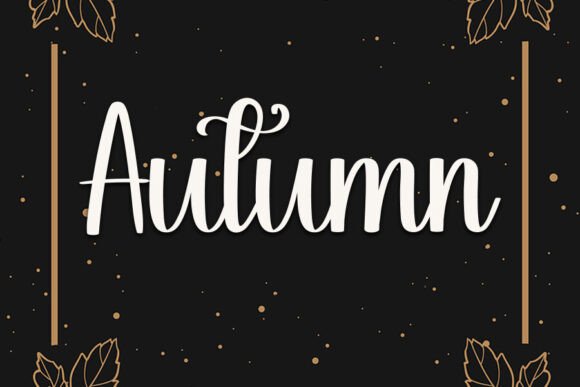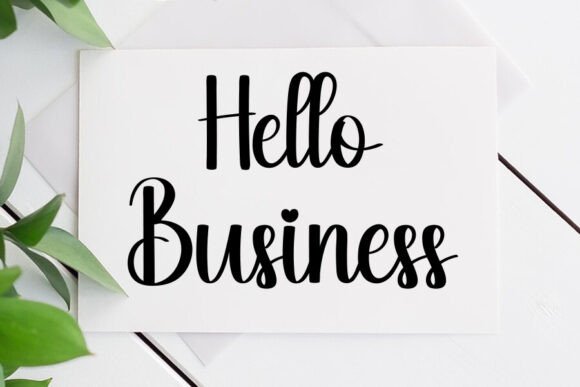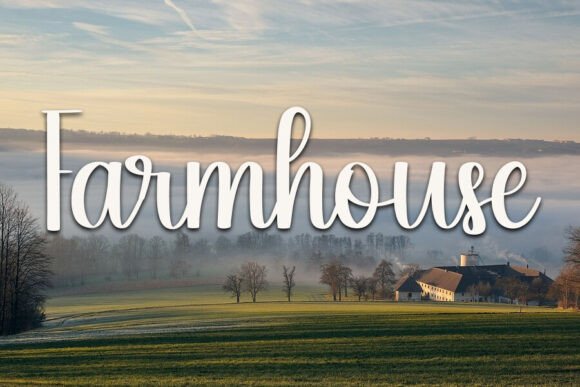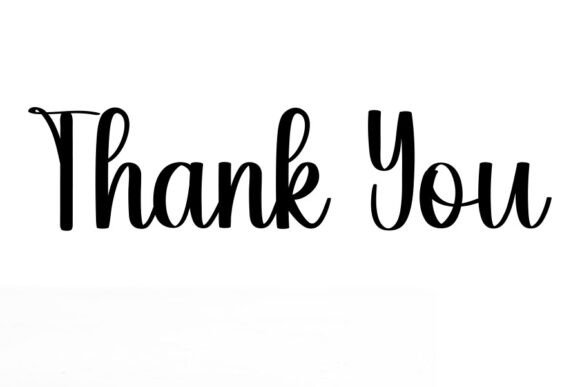
Introducing Background Font: Elevate Your Designs with Elegant Handwritten Style
In the world of typography, few fonts manage to capture the essence of elegance and personal touch as effectively as Background Font. This beautiful handwritten font boasts a natural, flowing style that closely resembles elegant cursive writing. It’s an excellent choice for designers and crafters looking to add a sophisticated and stylish flair to their projects, be it invitations, logos, social media posts, or any other creative endeavor.
The Charm of Background Font
Background Font stands out due to its unique, handcrafted aesthetic. Unlike generic, computer-generated fonts, Background Font brings a level of warmth and personality that’s hard to achieve with standard typography. Its elegant cursive style is not only visually appealing but also highly versatile, making it suitable for a wide range of applications.
Key Features of Background Font
- Natural and Flowing Style: The font’s design mimics natural handwriting, complete with subtle variations in line width and a fluid, connected script that gives it a dynamic feel.
- Elegant Cursive Writing: It embodies the sophistication of traditional cursive writing, making it perfect for projects that require a touch of class and refinement.
- High Versatility: Whether you’re working on wedding invitations, branding materials, or digital content, Background Font can adapt to various design needs, ensuring your project stands out.
- Easy to Read: Despite its elegant and cursive nature, the font maintains a high level of readability, ensuring your message is conveyed clearly and effectively.
Applications of Background Font
The versatility of Background Font makes it an invaluable asset for a variety of design projects. Here are some of the most popular applications:
- Invitations and Announcements: Add a personal and elegant touch to wedding invitations, birthday announcements, and other special occasion greetings.
- Logos and Branding: Use Background Font to create distinctive and memorable logos that convey sophistication and style, setting your brand apart from the competition.
- Social Media Posts: Elevate your digital content with stylish and engaging text. Background Font can make your social media posts, quotes, and stories more visually appealing and engaging.
- Packaging and Product Design: Enhance your product packaging with a touch of elegance. Background Font can be used for labels, product descriptions, and brand storytelling on packaging.
Tips for Using Background Font Effectively
Background Font is a versatile and elegant handwritten font that can add a personal and stylish touch to a wide range of design projects. Its natural, flowing style and elegant cursive writing make it an excellent choice for designers and crafters looking to elevate their designs. With its high readability, versatility, and the charm it brings to any project, Background Font is sure to become a staple in your typography arsenal.